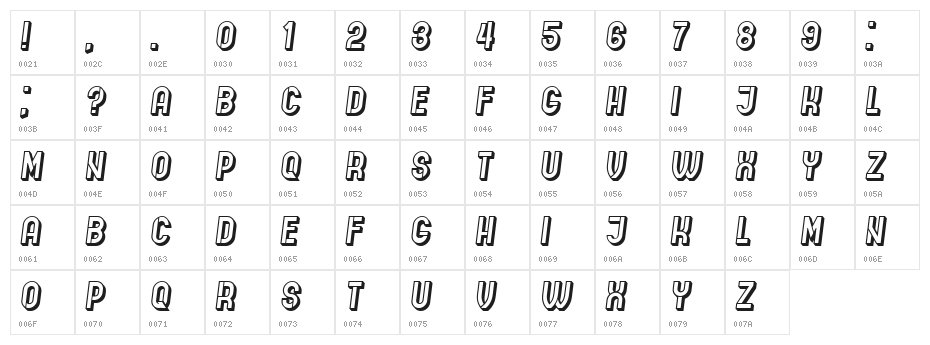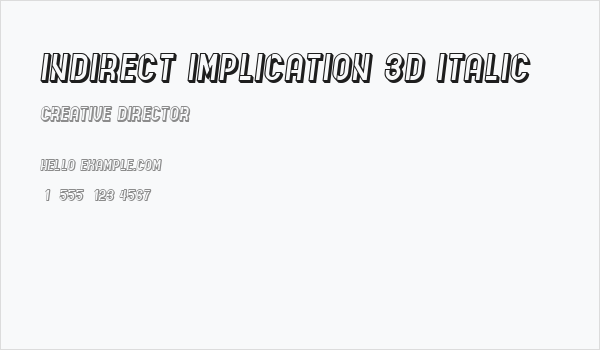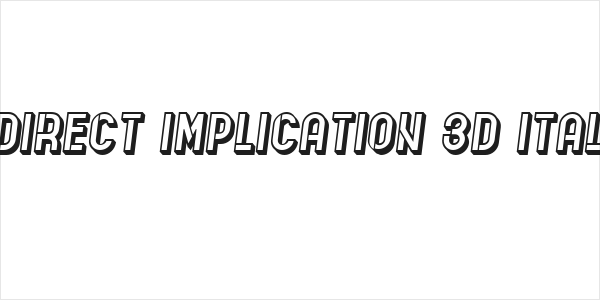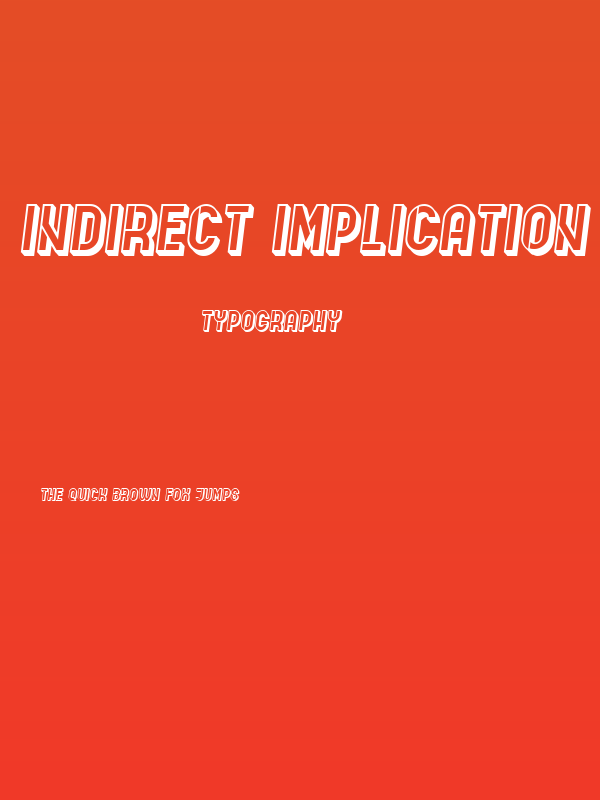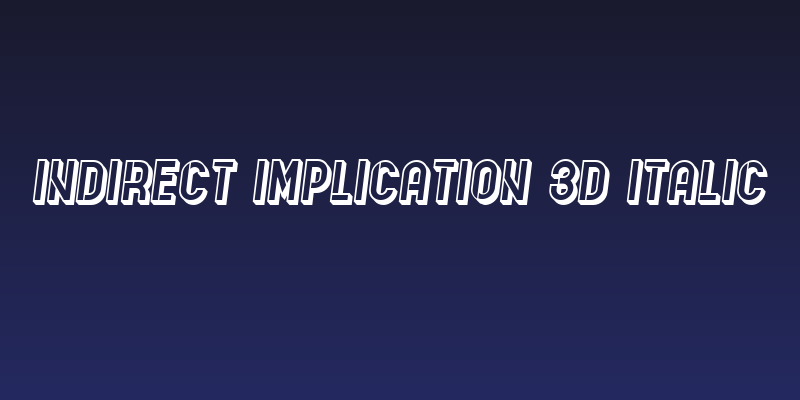
Indirect Implication 3D Italic Font
Indirect Implication 3D Italic Description
This font features a bold, three-dimensional design with an italic slant, giving it a dynamic and modern appearance. The characters are outlined with a thick black border, creating a striking contrast against the white interior. The 3D effect is achieved through a clever use of shadowing, making each letter appear as though it is popping off the page. The uppercase and lowercase letters maintain a consistent style, with rounded edges and a slightly condensed form. Numbers and punctuation are designed to match the bold and impactful style of the alphabet, ensuring a cohesive look across all characters.
| Proposed Projects | Ideal for eye-catching headlines, posters, logos, and any design project that requires a bold statement. |